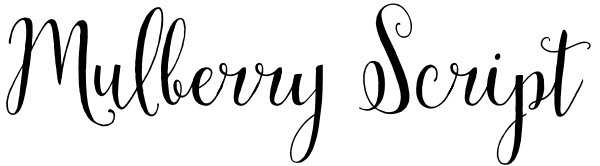
Mulberry Script
Mulberry is a beautiful handwritten calligraphy script that comes with lovely alternates, ligatures, extras and ornaments. Choose between Mulberry Script or Mulberry Script Pro and two font weights (Regular/Bold). Mulberry Script comes with a basic...